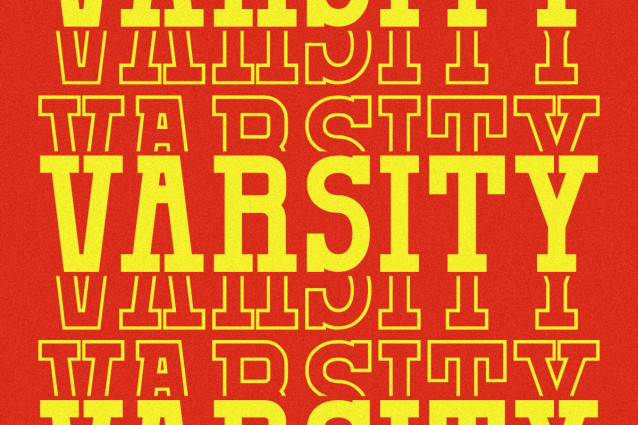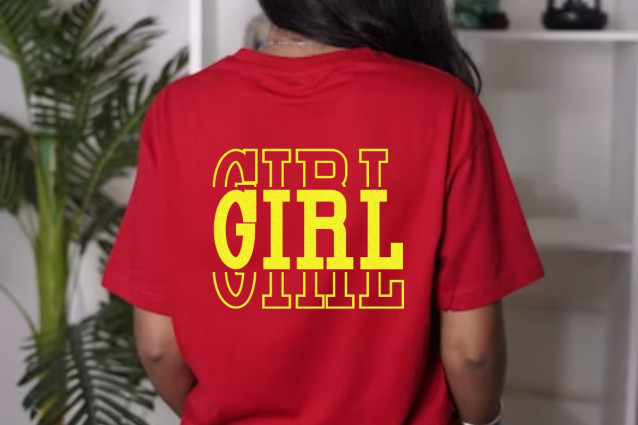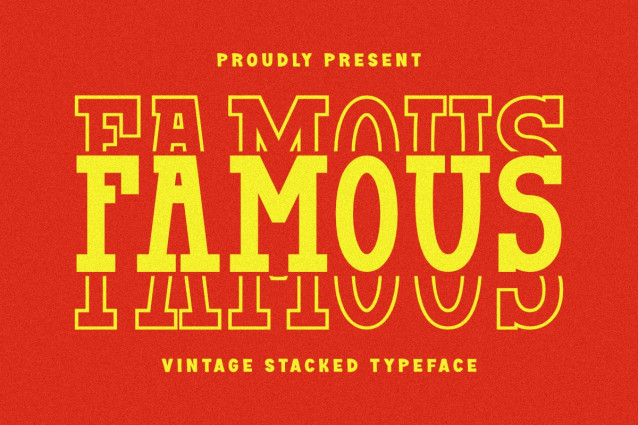
Famous Stacked Font
Famous Stacked Font a dynamic Vintage Stacked Typeface designed for maximum impact. This layered display font includes multiple styles to easily create authentic, colorful, retro effects. Perfect for Apparel Merch, Poster Headlines, and Bold Nostalgic Branding